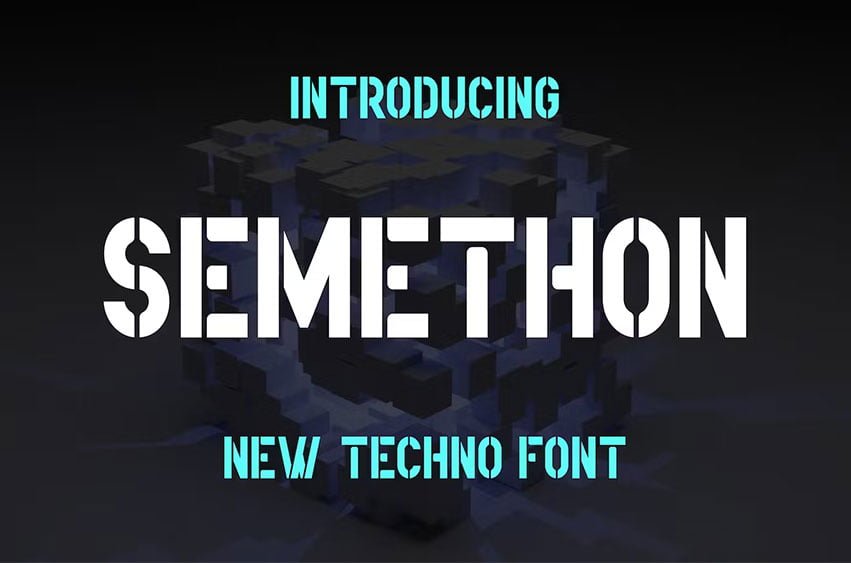
Semethon Font Modern Font is a bold and authentic display font. The font is suitable for any branding project like logo, esport, and many more. outstanding in a wide range of contexts.